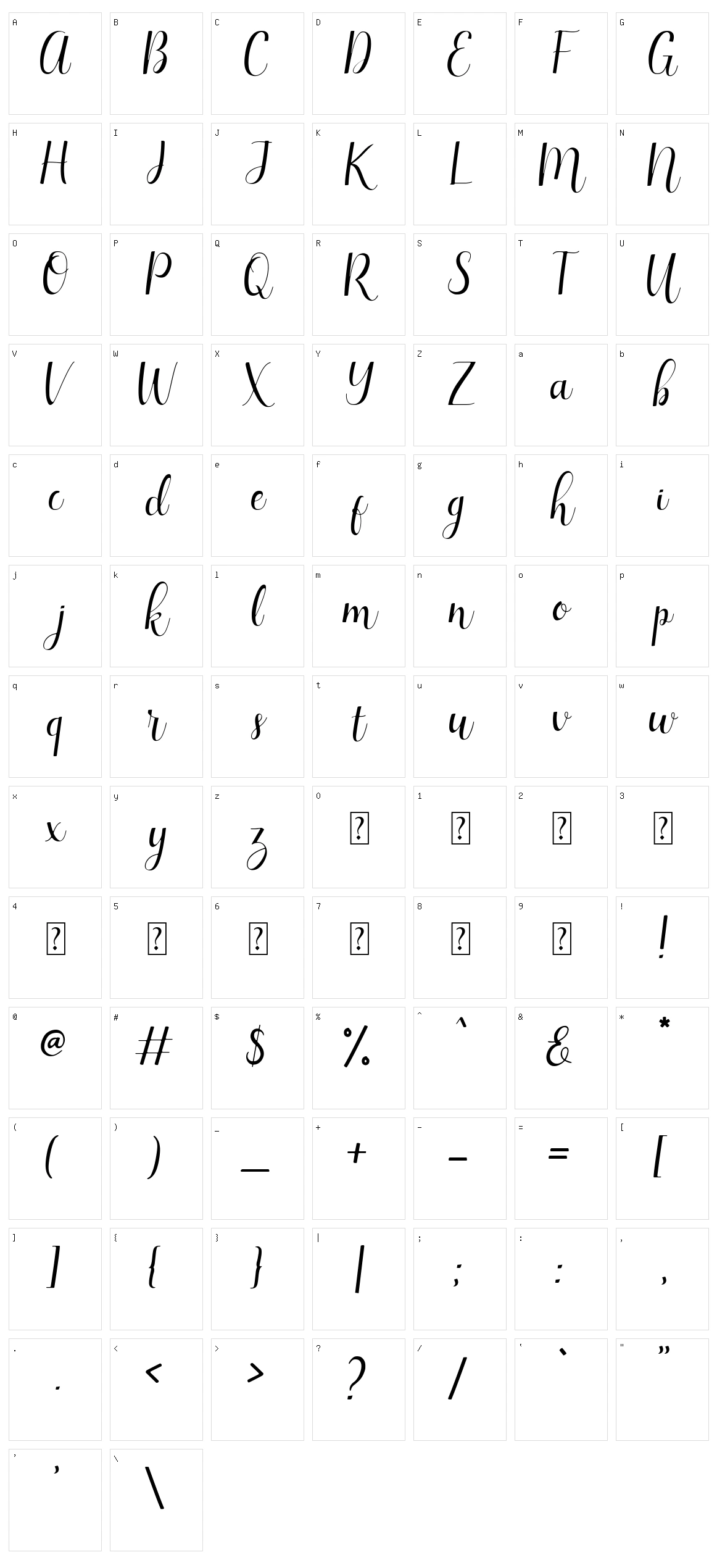
Introducing my new font project, it's called Qeysha Script.
The Qeysha is a Beautiful script font. It has an elegant and feminime style and will add a luxurious touch to your design.
This font is very suitable for Feminime Project Design for example : Feminime logo, Wedding invitation, Birthday invitation,
Greeting card, quote, Headline magazine, Clothing, Poster, Stationary and many other project design.
- Standard Letters
- Numeral and Punctuation
- Natural Ligatures.